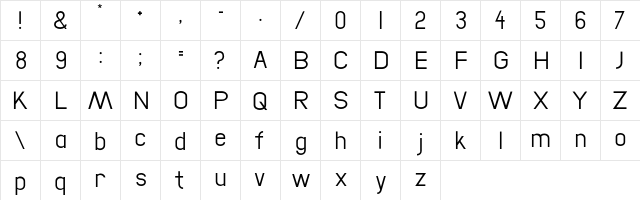
Cata Sans Regular
| Foundry | Joe Chau |
Design Context for Cata Sans Typeface
Cata Sans takes a measured approach to typography — its balanced proportions and neutral character make it a reliable workhorse for both digital and print work.